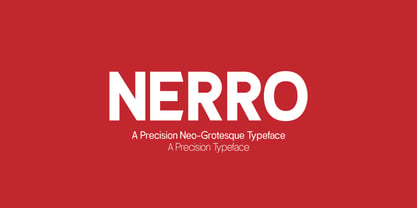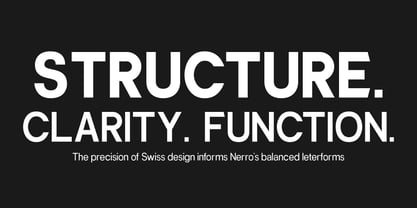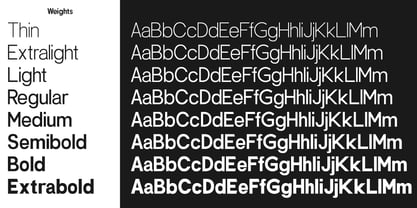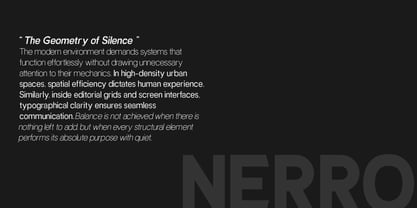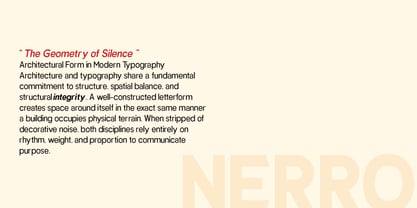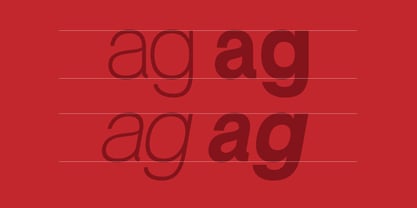
Nerro
Nerro is a refined neo-grotesque sans-serif typeface designed with clarity, balance, and modern functionality at its core. Drawing inspiration from classic Swiss typography, Nerro offers a clean aesthetic, neutral letterforms, and precise proportions that make it an essential tool for contemporary graphic designers.
Engineered for extreme versatility, Nerro performs effortlessly across both print and digital environments. Its subtle curves and well-balanced counterforms deliver exceptional legibility in dense body text, while its confident, unpretentious structures make a striking impression in large display headlines.
Key Features:
- Excellent legibility at both small text sizes and large display scale
- Well-crafted kerning and proportional spacing
- Suitable for corporate branding, editorial design, UI/UX interfaces, packaging, and signage systems
Whether you are crafting a minimal brand identity, designing a complex editorial publication, or building a sleek user interface, Nerro provides the structural clarity and modern elegance your projects require.